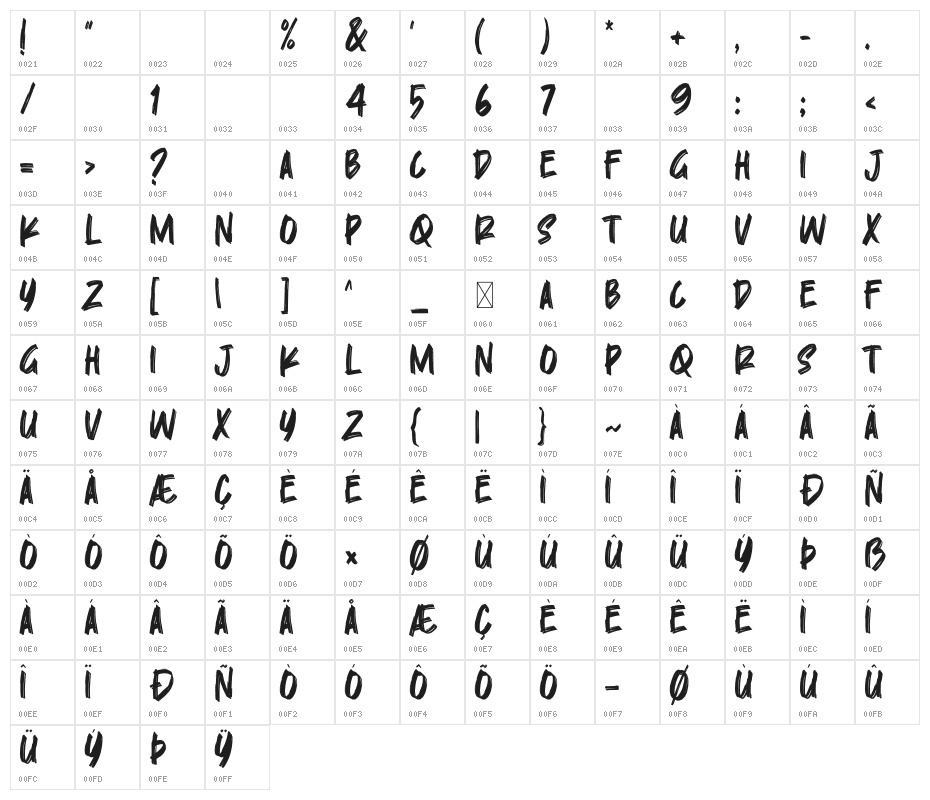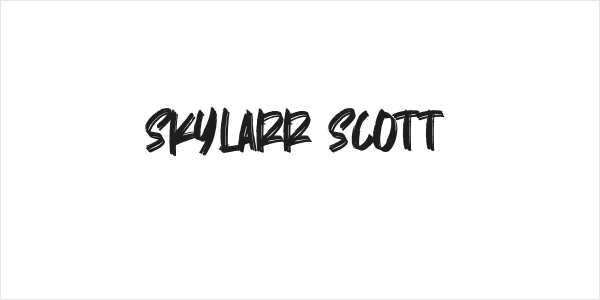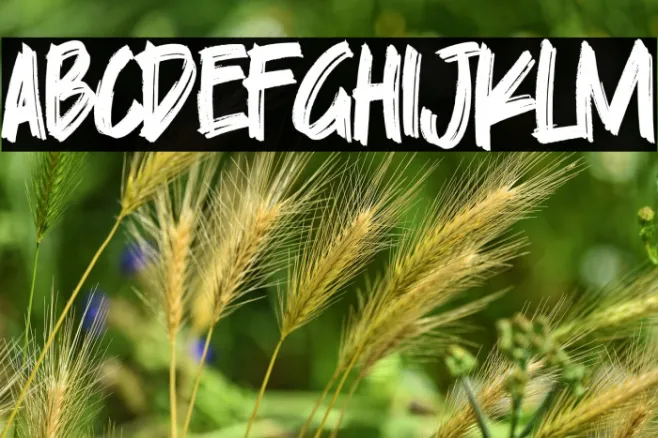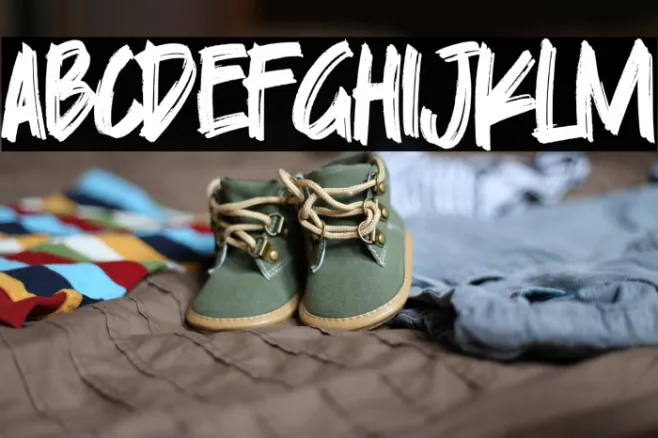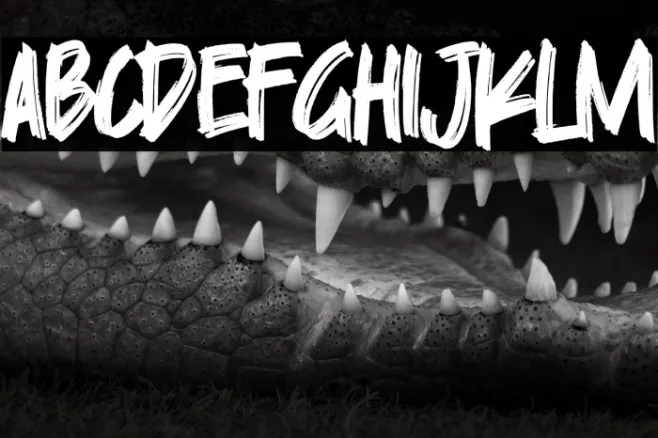
Skylarr Scott Font
Skylarr Scott Description
This font exhibits a bold, expressive style with a hand-drawn appearance. The letters are characterized by thick, uneven strokes that give a dynamic and energetic feel. The uppercase and lowercase letters maintain a consistent style, with a slightly rough texture that adds to its raw aesthetic. The numbers and special characters follow the same bold and artistic design, making the font suitable for creative and informal projects. Its unique style is reminiscent of graffiti or street art, offering a sense of movement and spontaneity.
| Proposed Projects | Ideal for posters, album covers, streetwear branding, and any project requiring a bold, artistic touch. |